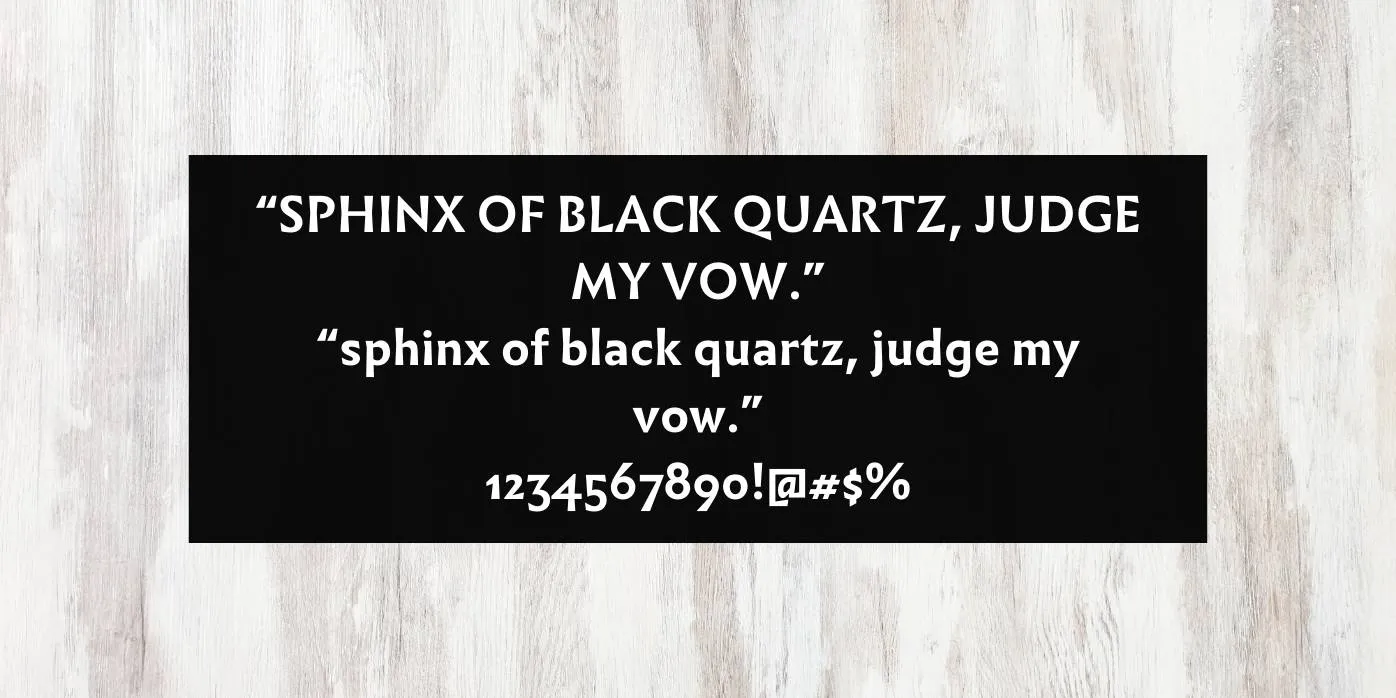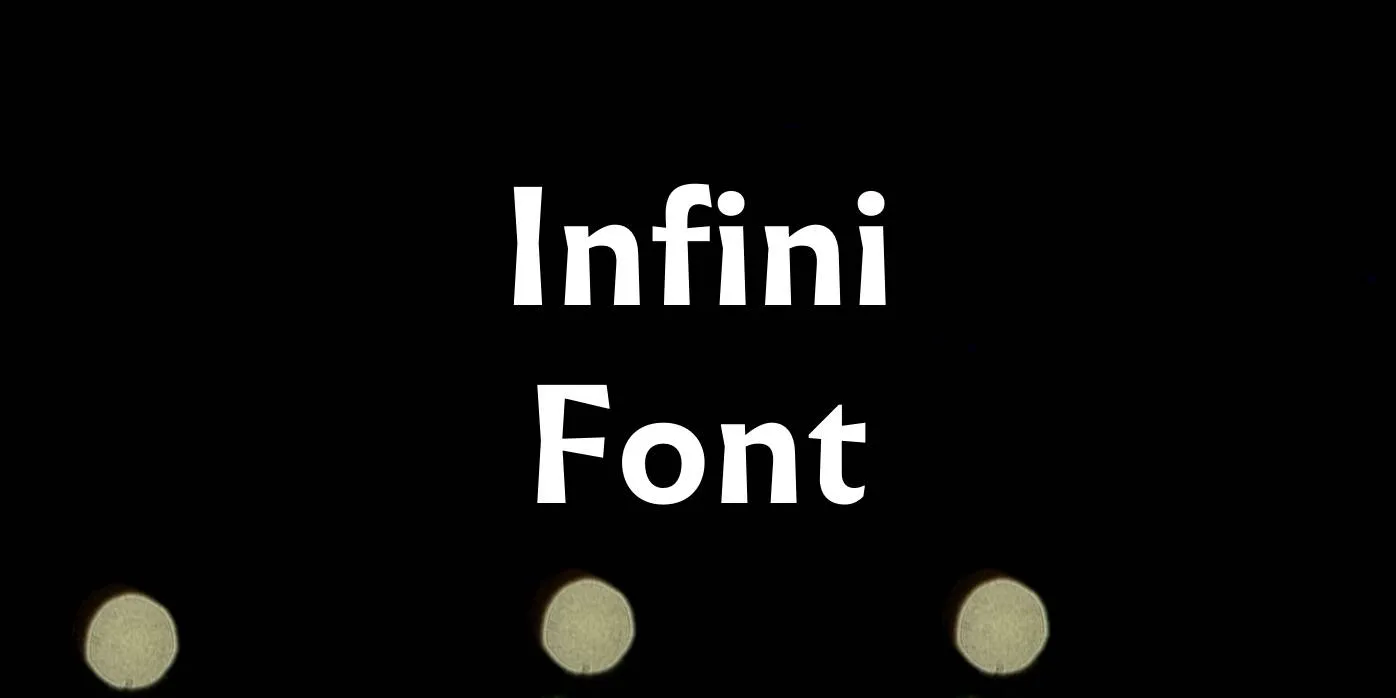
Infini Font
Infini Font is a classic typeface that was designed by Paris-based graphic and type designer Sandrine Nugue. This typeface is a calligraphic sans serif family that comes in regular, bold, and italic versions. This font family includes a total of 12 fonts: 6 weights (Light, Regular, Medium, Bold, Heavy, and Black) with matching oblique versions for each weight. Each character of this font family has been carefully designed with great attention to detail.
The result is a typeface that is both stylish and easy to read. Another similar font which is cubano font is perfect for different designs. This typeface is famous for its copy-and-paste function. For use in Adobe Illustrator, this typeface is the best choice.
If you’re looking for a versatile sans serif typeface that can be used for both body text and headlines, then Infini Font is a great choice. Its different character styles make it perfect for a wide range of projects, from branding to web design.